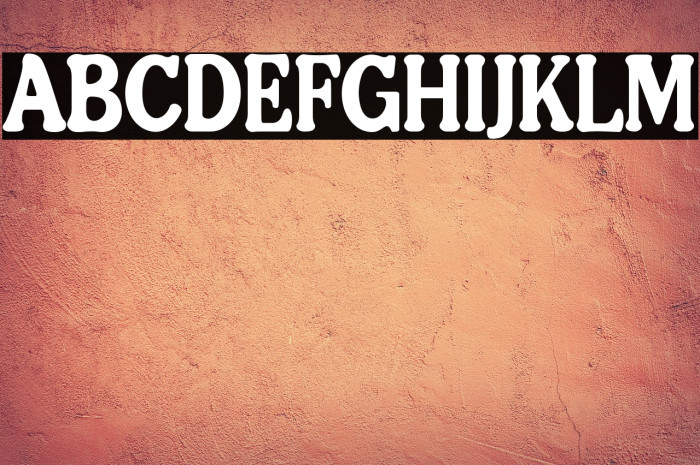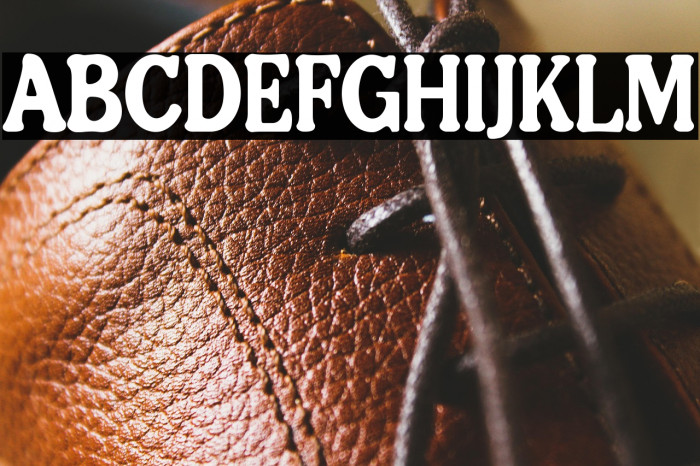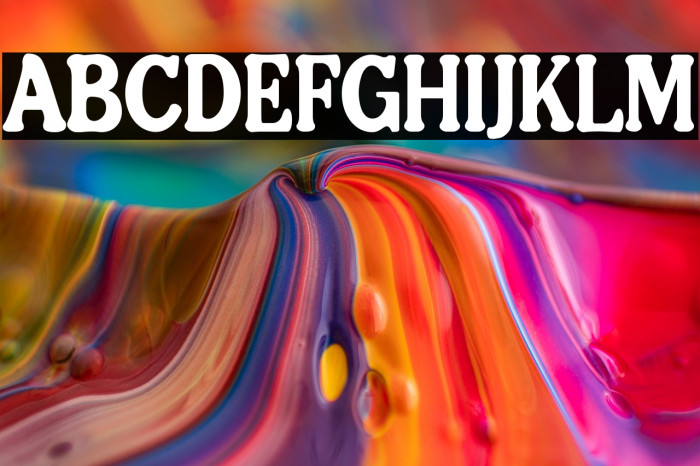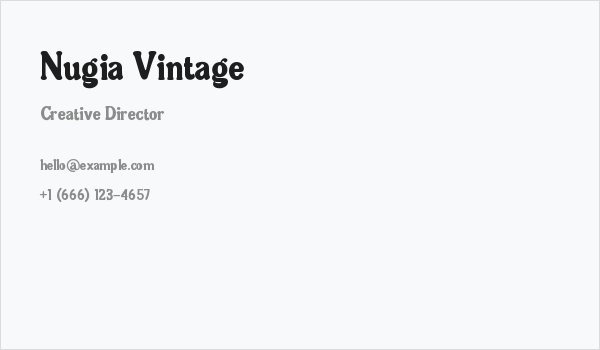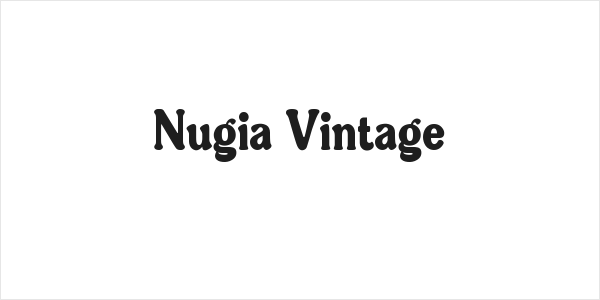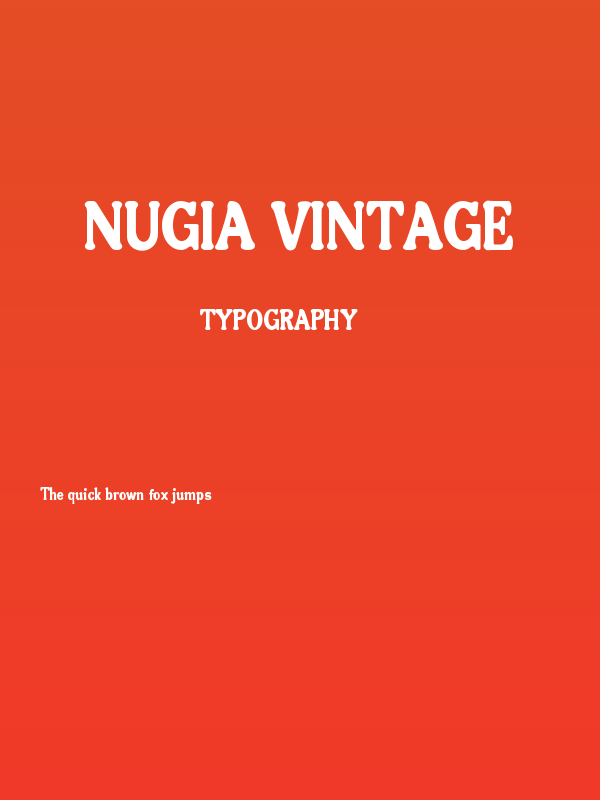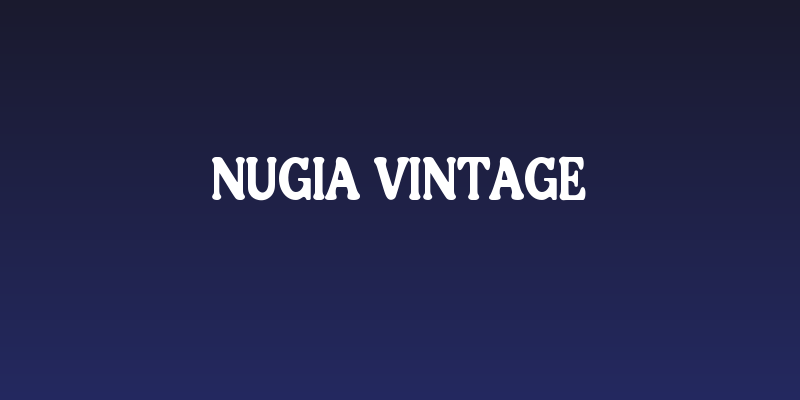
Nugia Vintage Font
Nugia Vintage Description
This font exudes a vintage charm with its bold, rounded serifs and thick strokes, reminiscent of classic advertising and signage from the early 20th century. The uppercase letters are robust and commanding, while the lowercase characters maintain a playful yet sturdy appearance. Numbers and special characters are equally bold, ensuring legibility and impact. The overall design is cohesive, with a consistent stroke weight that enhances its retro appeal. This font is perfect for projects that require a nostalgic touch, combining readability with a distinctive style.
Overall StyleVintage
Proposed ProjectsIdeal for vintage-themed posters, retro branding, packaging, and signage.